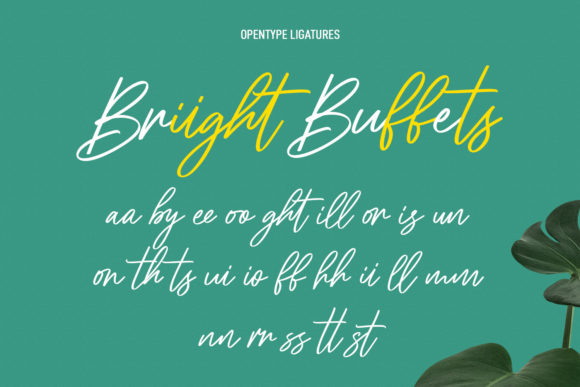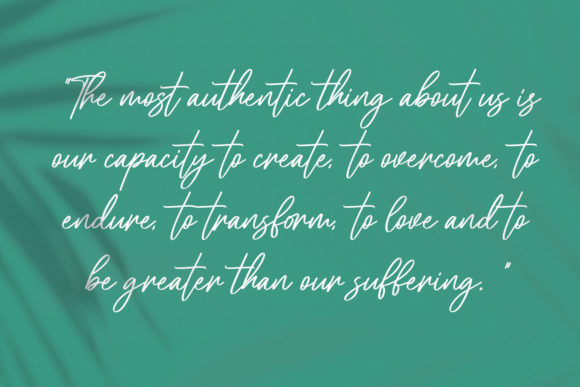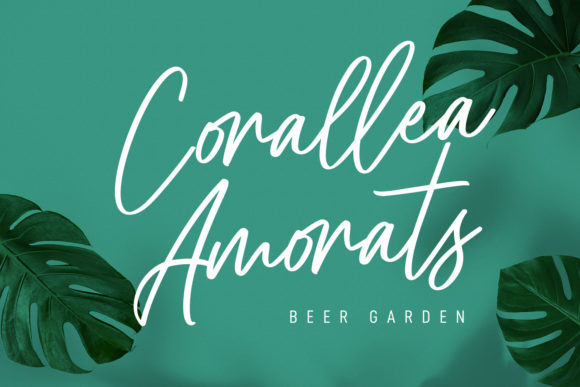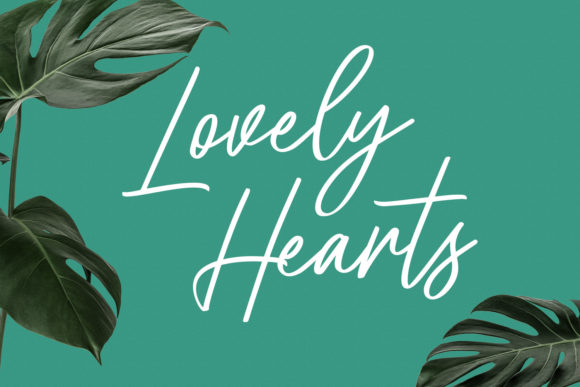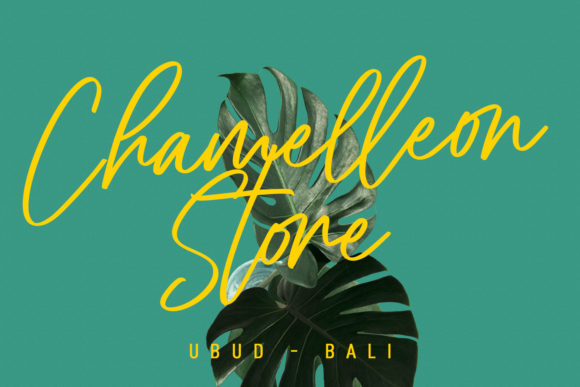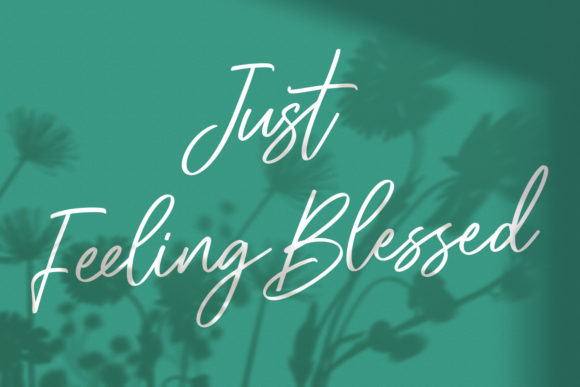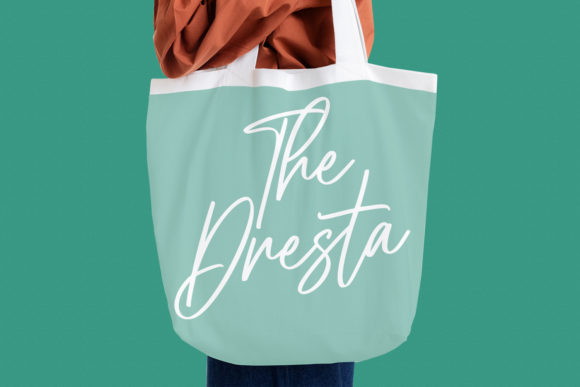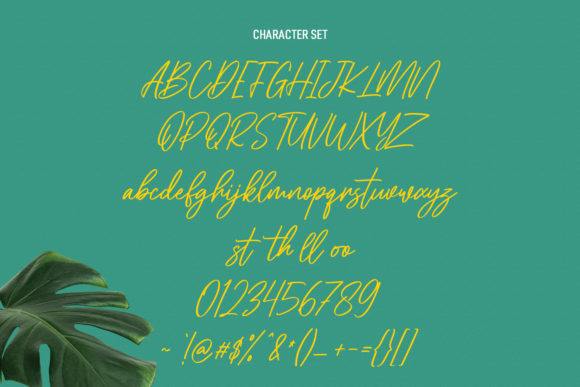
Cellarets Signature Font
About Cellarets Signature Font
Cellarets Signature is a sweet and friendly handwritten font. Its natural and unique style makes it incredibly fitting to a large pool of designs. The only limit is your imagination!